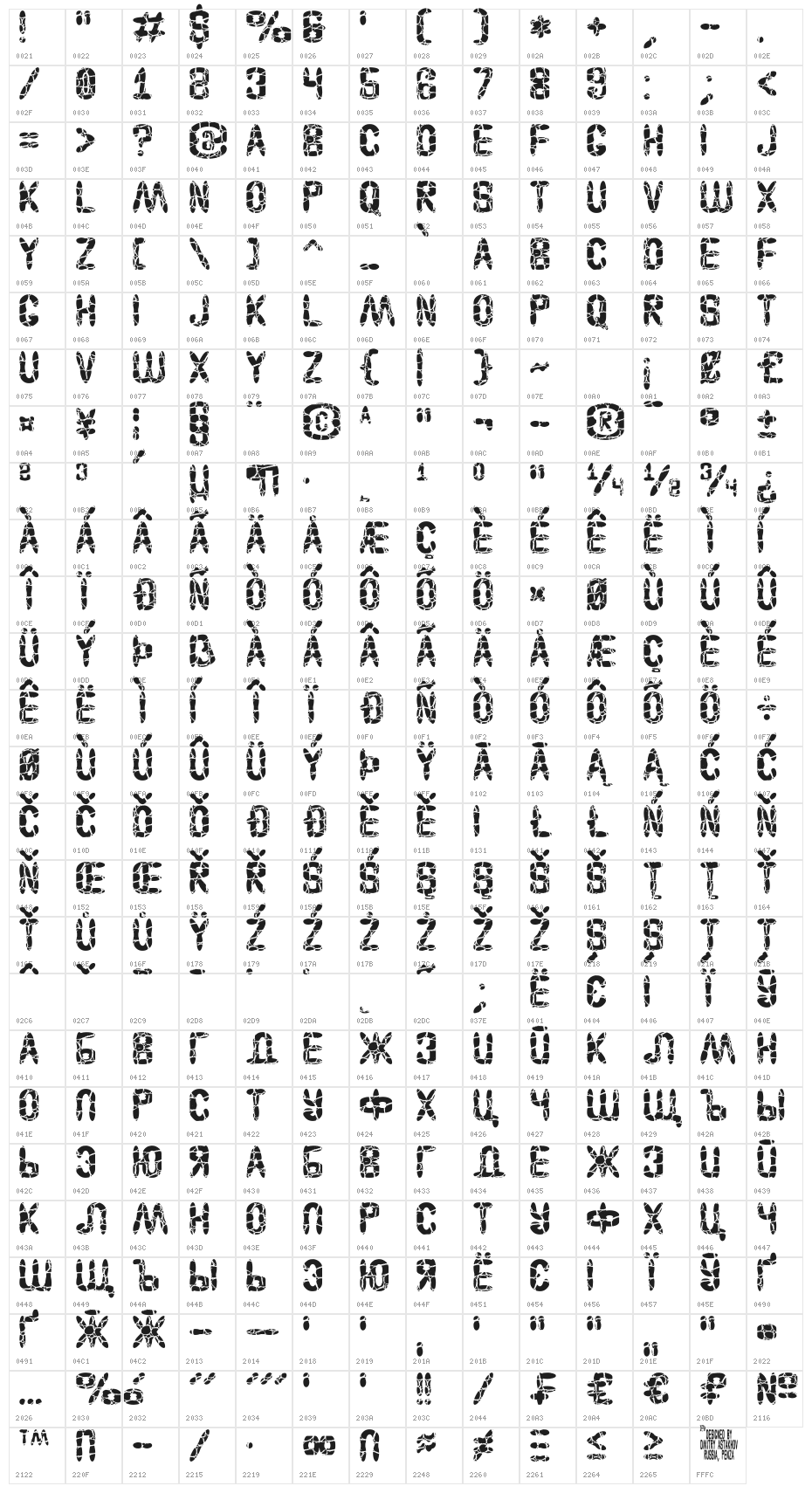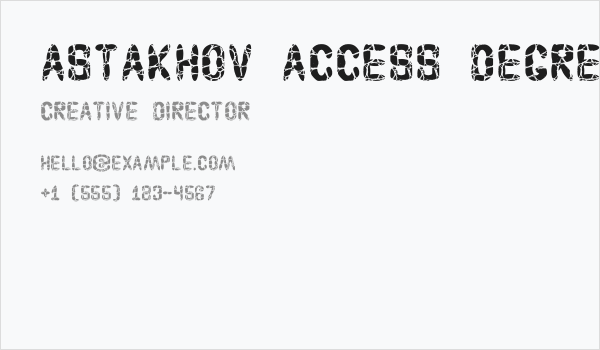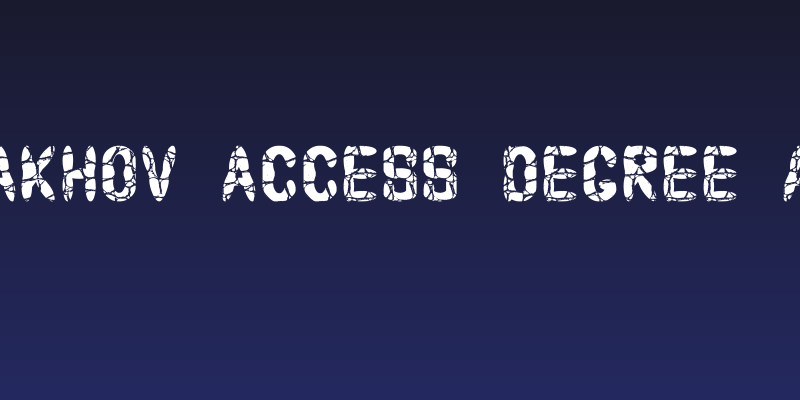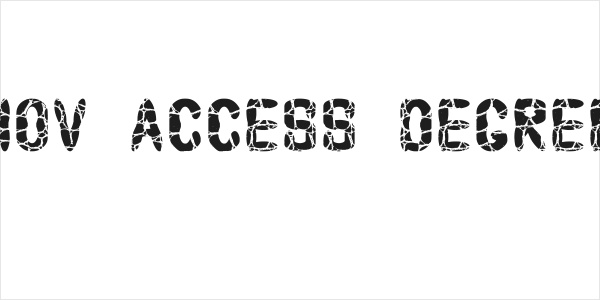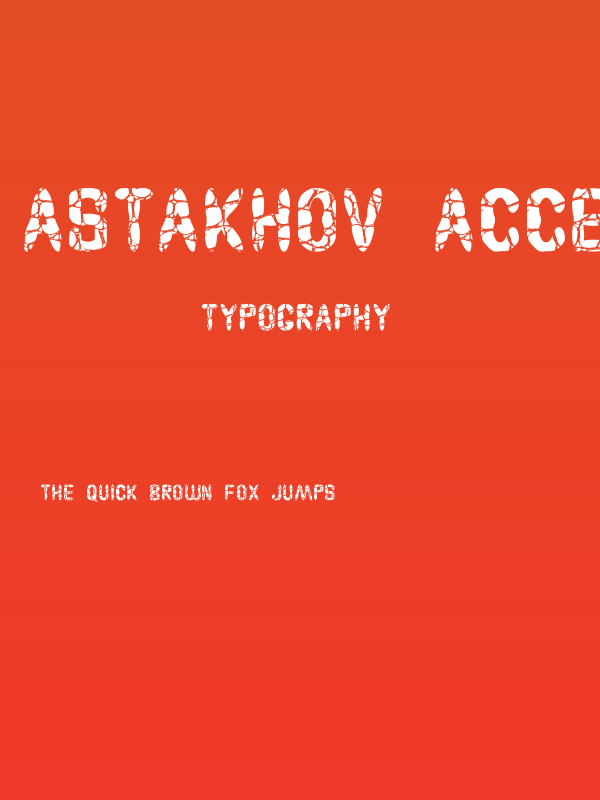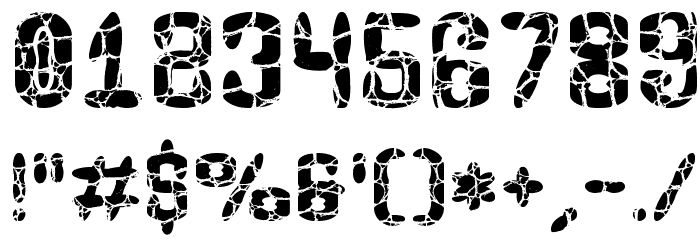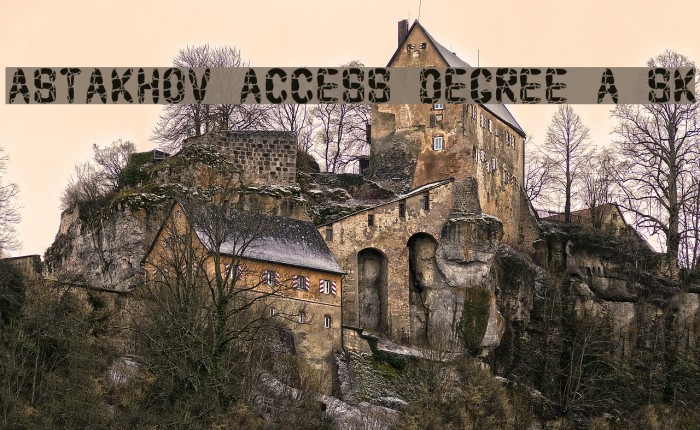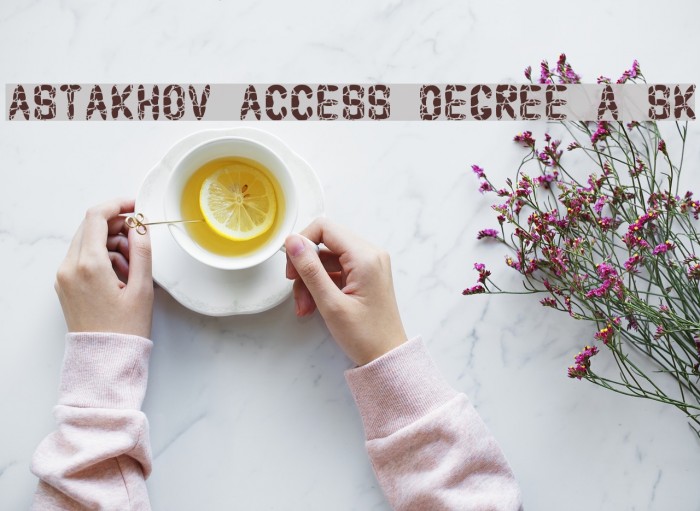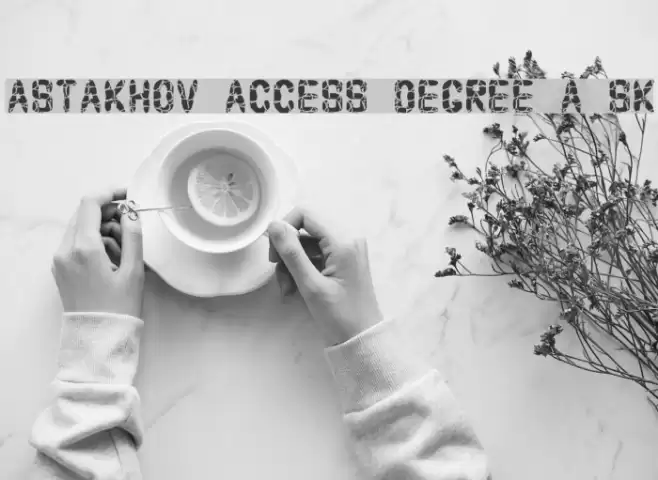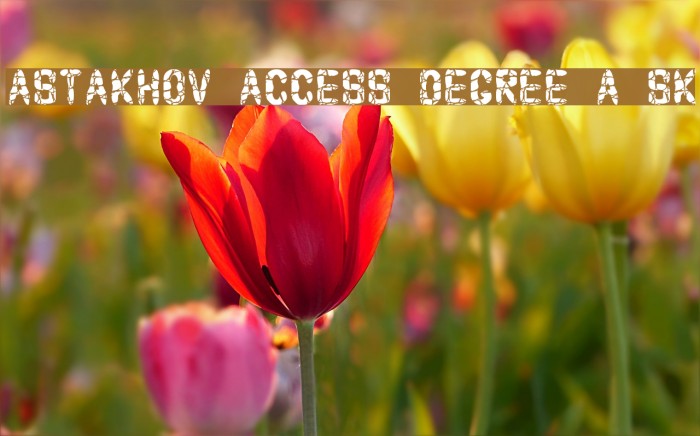
Astakhov Access Degree A Sk Font
Astakhov Access Degree A Sk Description
This font features a unique, cracked texture that gives each character a fragmented appearance, reminiscent of shattered glass or a distressed surface. The bold, uppercase letters are designed with a consistent width, creating a uniform look across the alphabet. The lowercase letters maintain this style, offering a cohesive aesthetic. Numbers and special characters are also included, each displaying the same distinctive cracked pattern. This font's design is eye-catching and unconventional, making it suitable for projects that require a bold statement or a rugged, edgy feel.